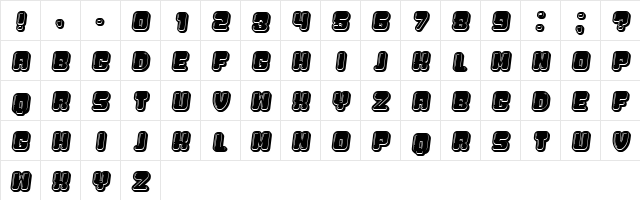
Complete Cosa Nostra Italic glyph index. Displaying only characters natively supported by Cosa Nostra Italic font.
Cosa Nostra is a composed and adaptable typeface that performs quietly and consistently across a wide range of design contexts. The slanted form adds forward momentum and visual energy.
Pro Tip: Use Cosa Nostra for emphasis, pull quotes, and subheadings where its slanted energy can add rhythm to the layout.